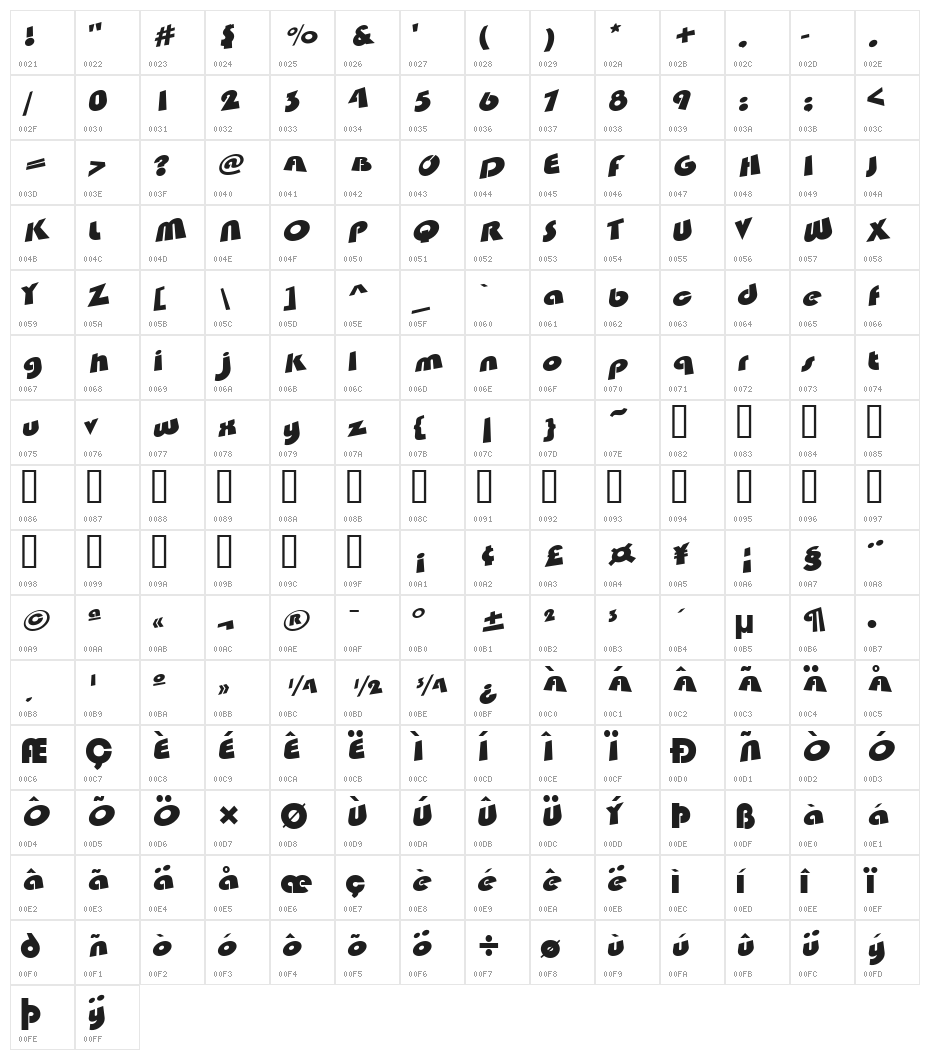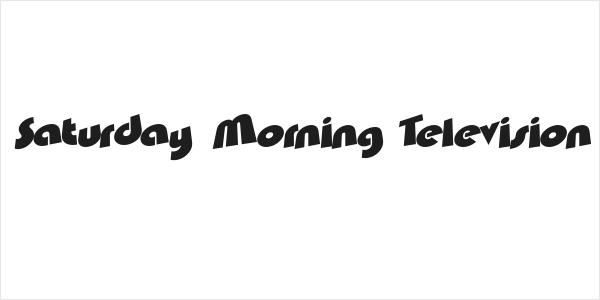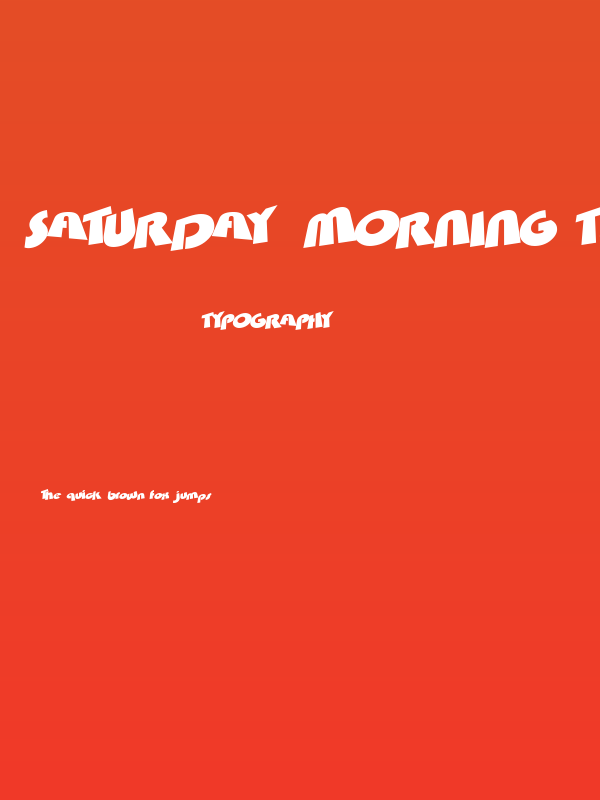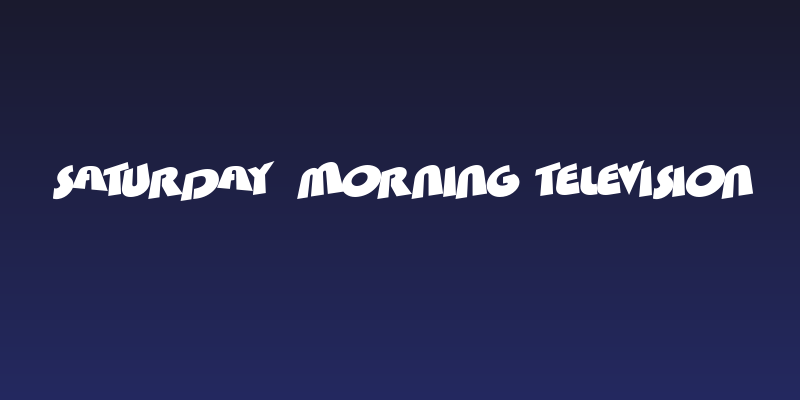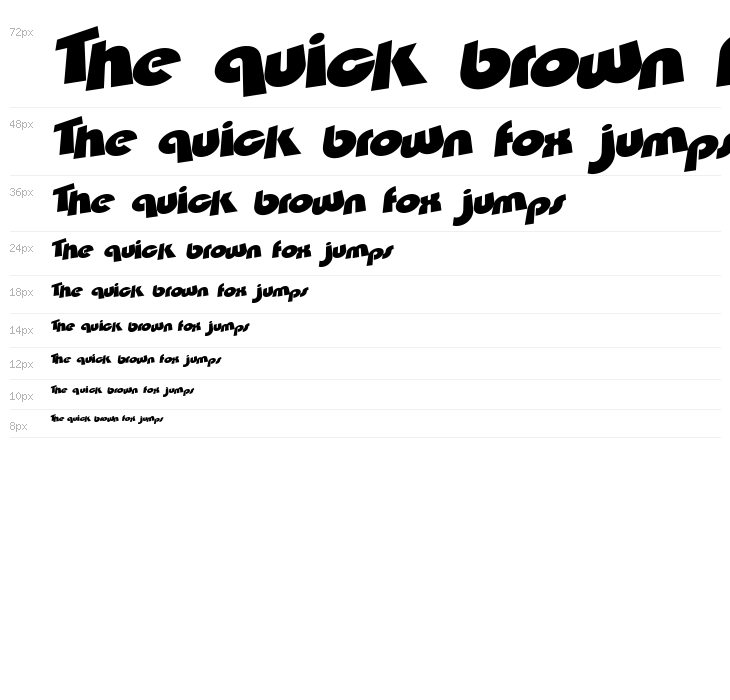
Saturday Morning Television Font
Saturday Morning Television Description
This playful and bold font features a distinctive, cartoonish style with exaggerated curves and angles. The letters are thick and slightly slanted, giving a dynamic and energetic feel. The uppercase and lowercase characters maintain a consistent style, with rounded edges and a sense of movement. The numbers and special characters follow the same whimsical design, making the font suitable for fun and informal contexts. Its unique appearance is reminiscent of retro cartoons, adding a nostalgic touch to any project.
| Overall Style | Retro, Playful |
| Proposed Projects | Ideal for children's books, comic strips, playful branding, and retro-themed designs. |